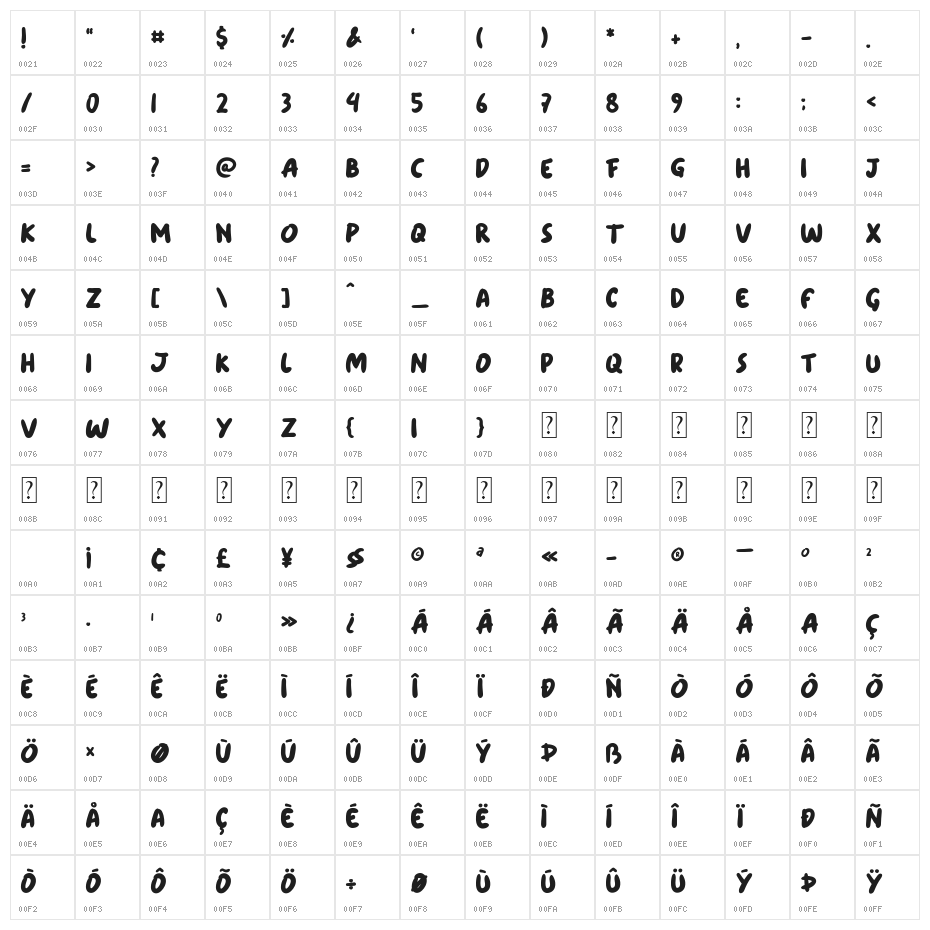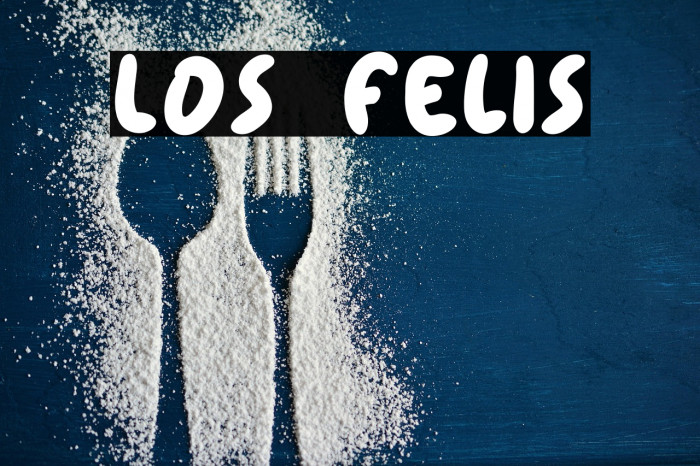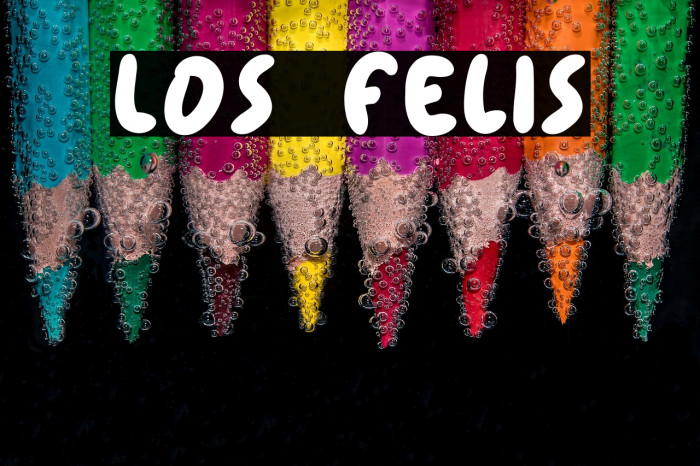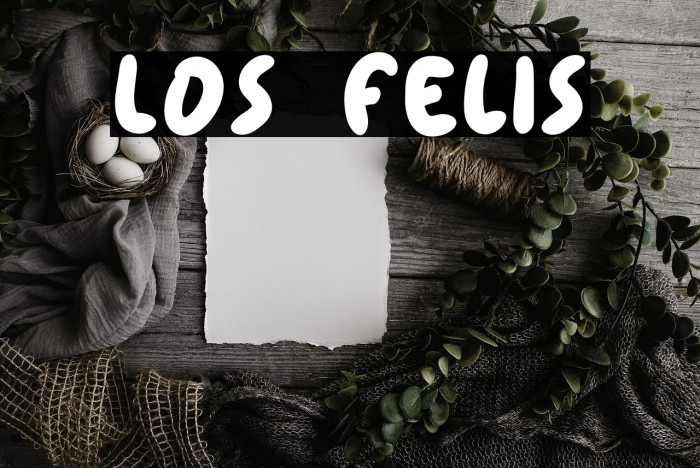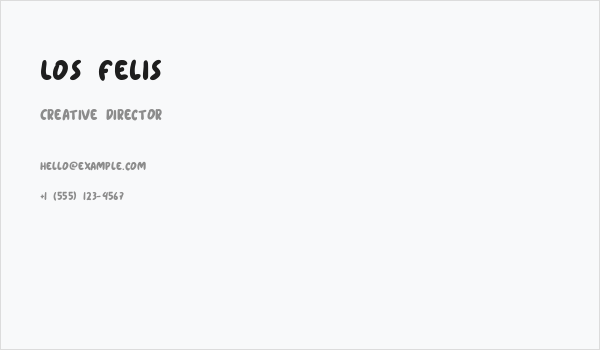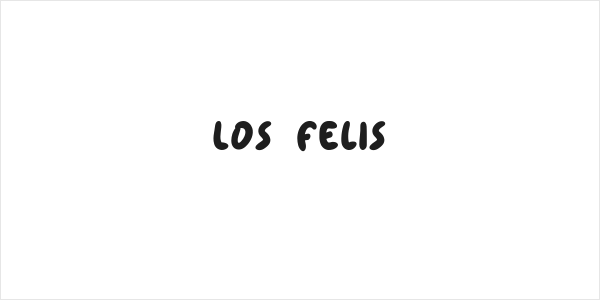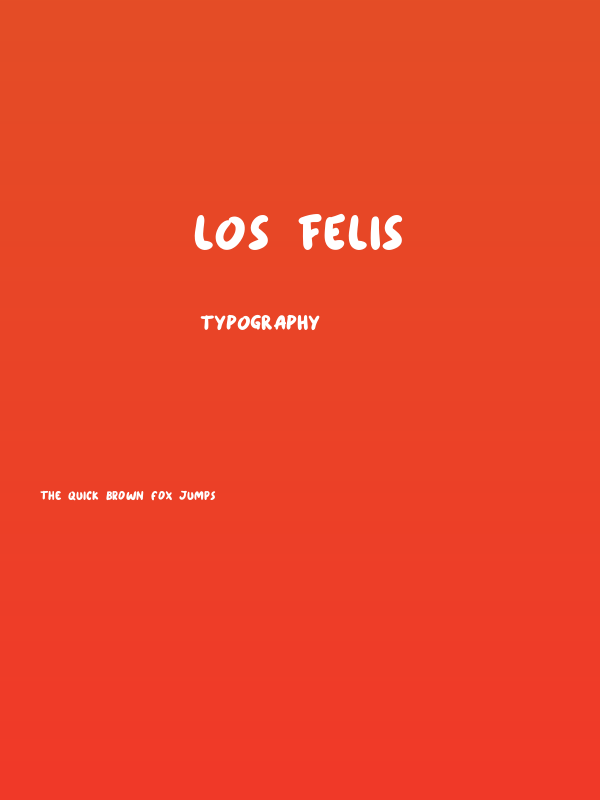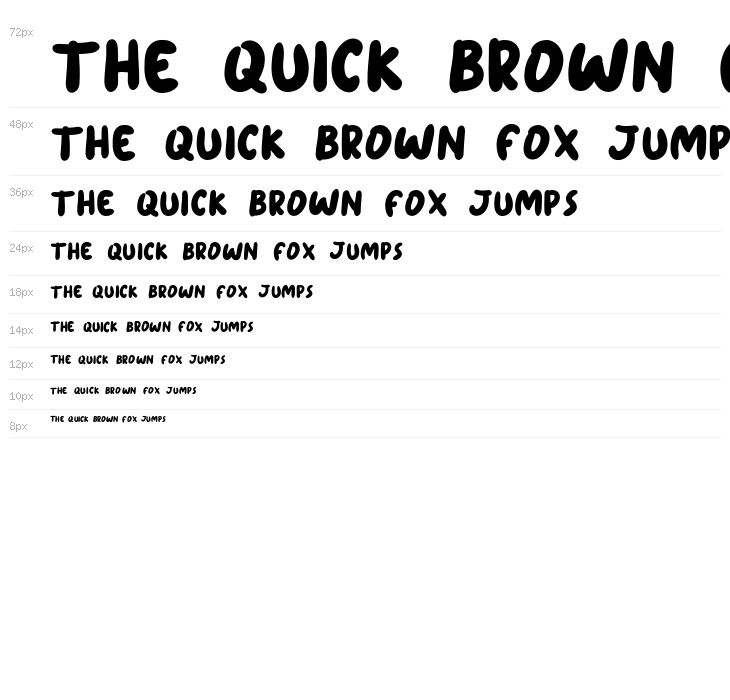
Los felis Font
Los felis Description
This playful and bold font features rounded, thick strokes that give it a friendly and approachable appearance. The characters are slightly irregular, adding a hand-drawn, whimsical feel. The uppercase and lowercase letters maintain a consistent style, with a smooth flow and a sense of movement. The numerals and special characters are equally bold and maintain the same playful aesthetic. This font is perfect for projects that require a fun and informal touch, such as children's books, playful branding, or casual invitations.
| Overall Style | Playful, Casual |
| Proposed Projects | Ideal for children's books, playful branding, casual invitations, and creative posters. |